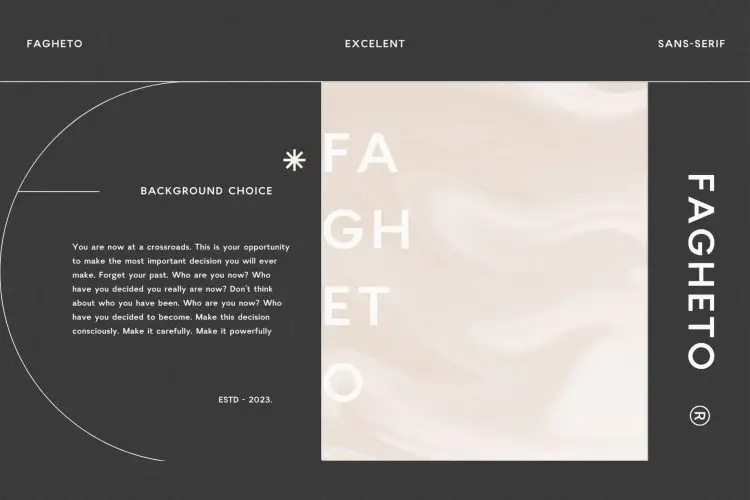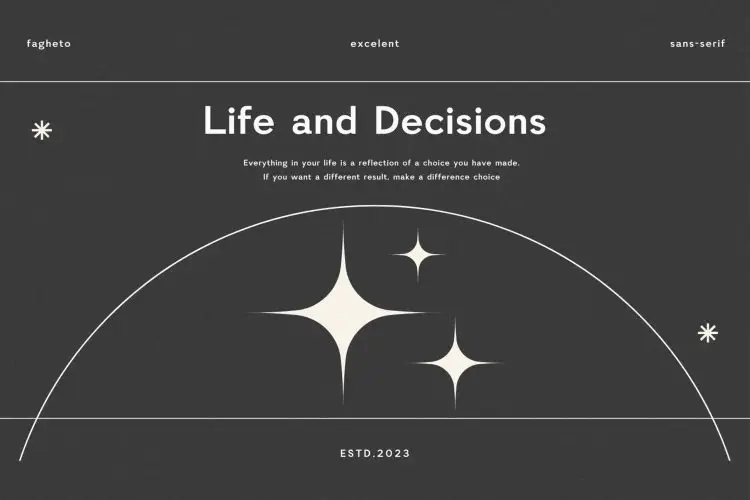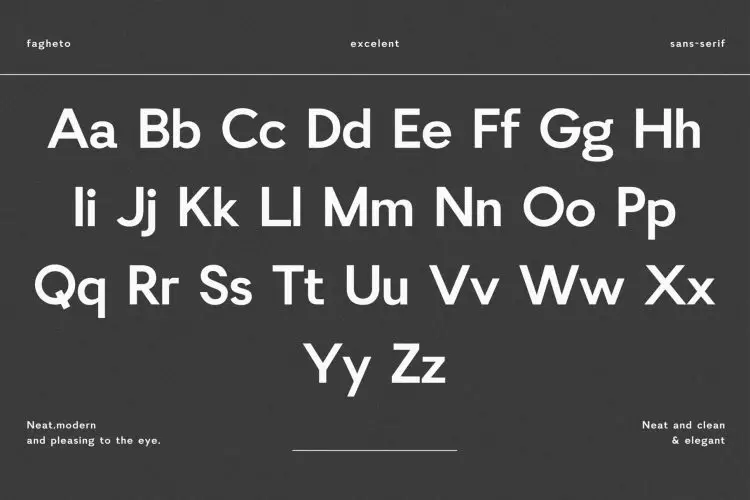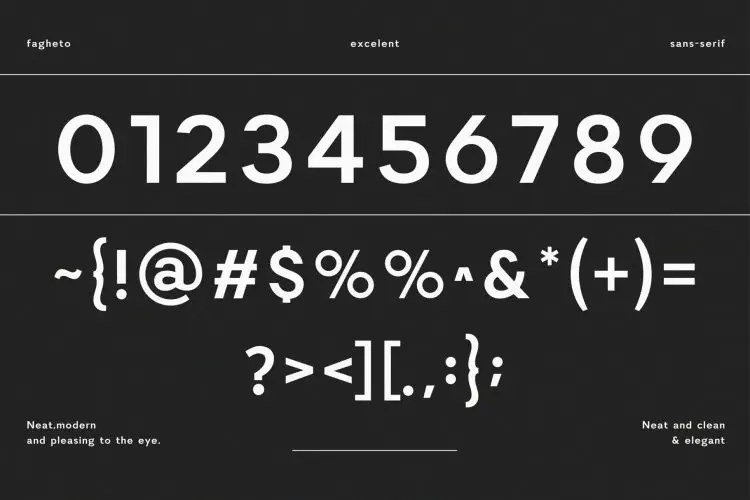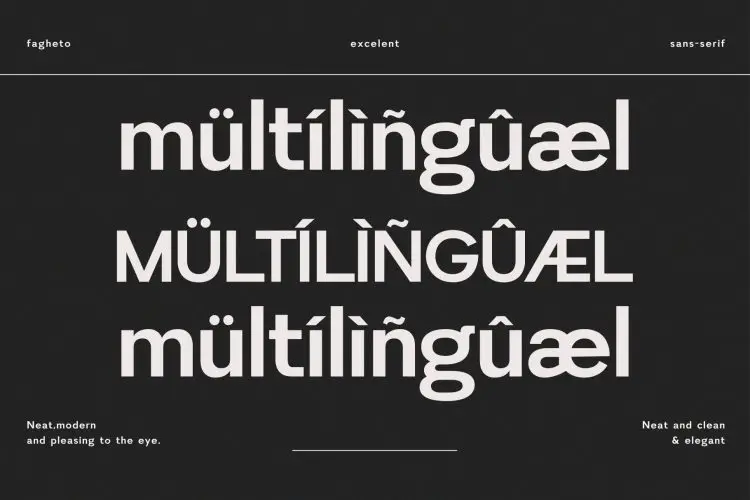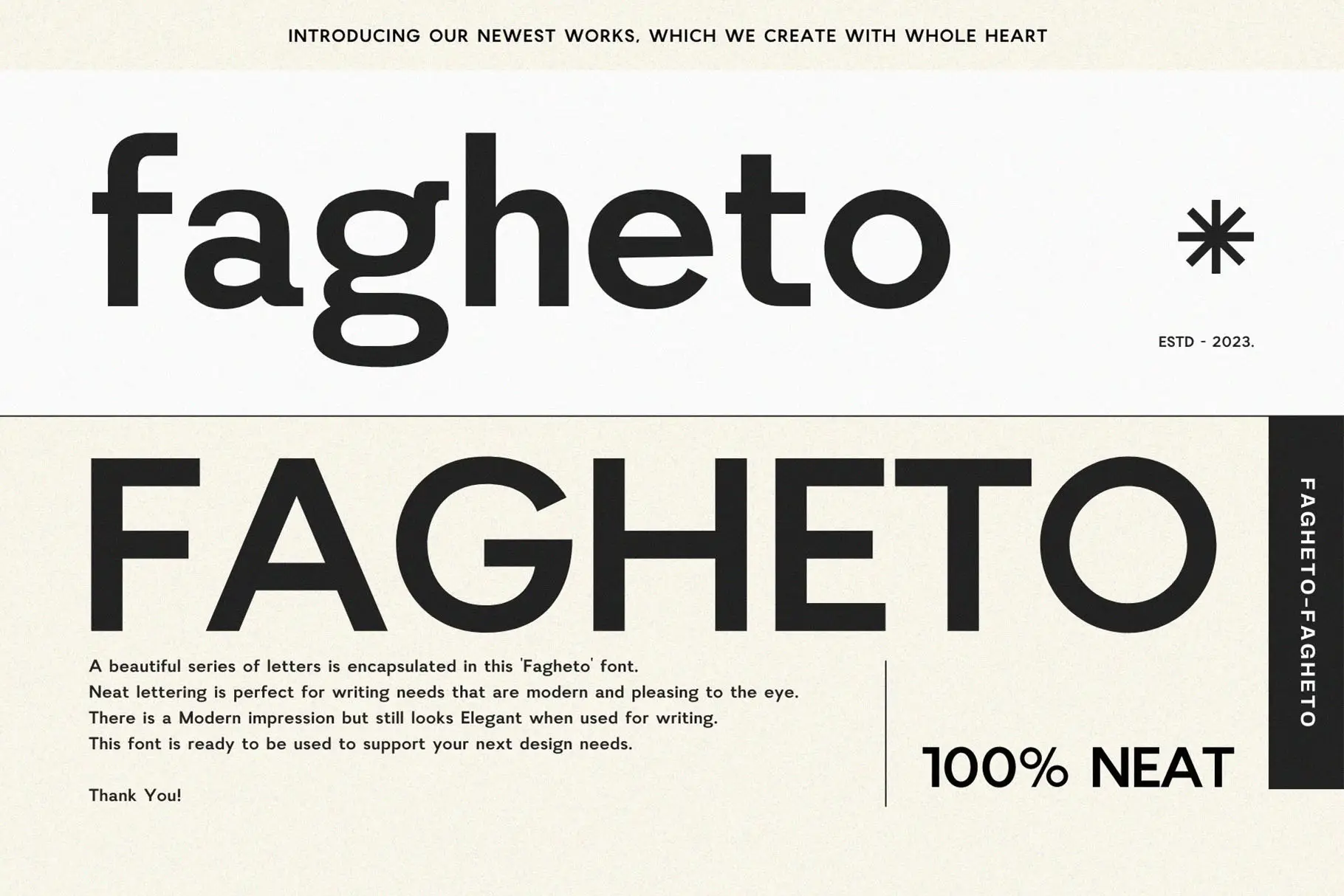
Fagheto Sans Serif Font
Fagheto
Introducing Fagheto: Elegant and Bold Sans Serif Font
Meet Fagheto, an elegant and bold sans-serif font crafted to elevate your creative projects. With its versatile style and meticulously designed letters, Fagheto is perfect for wedding invitations, exquisite stationery, social media posts, web design projects, and more.
• Ready for Creative Expression
• Immaculately Crafted Letters
Fagheto is an elegant and bold sans-serif font ideal for wedding invitations, social media, web design, and creative projects.